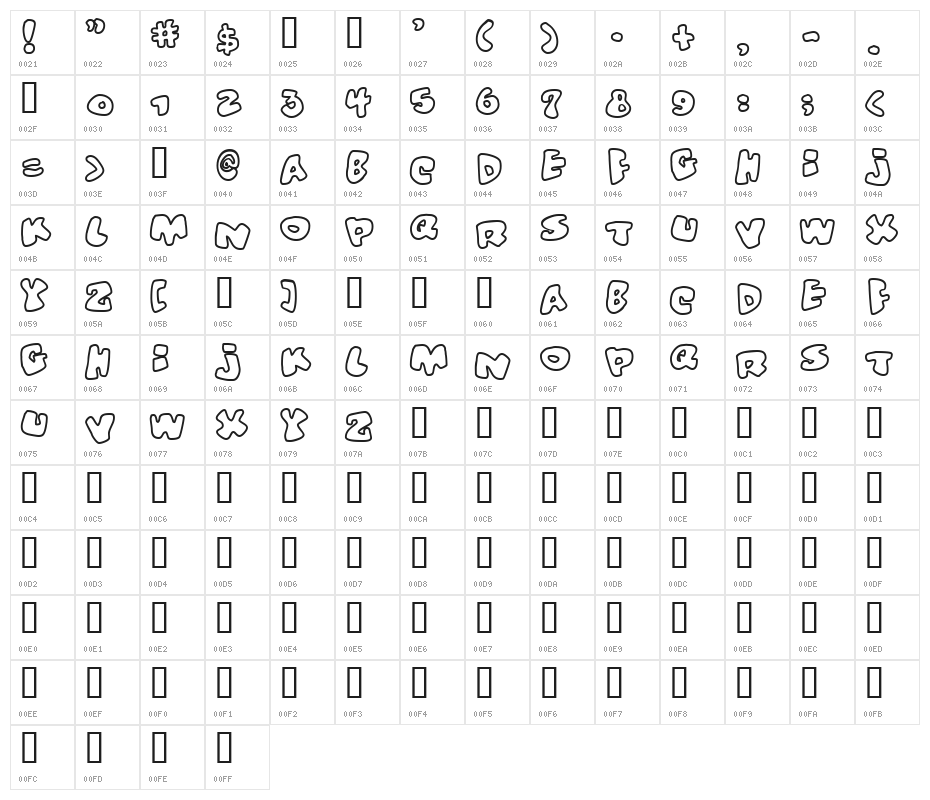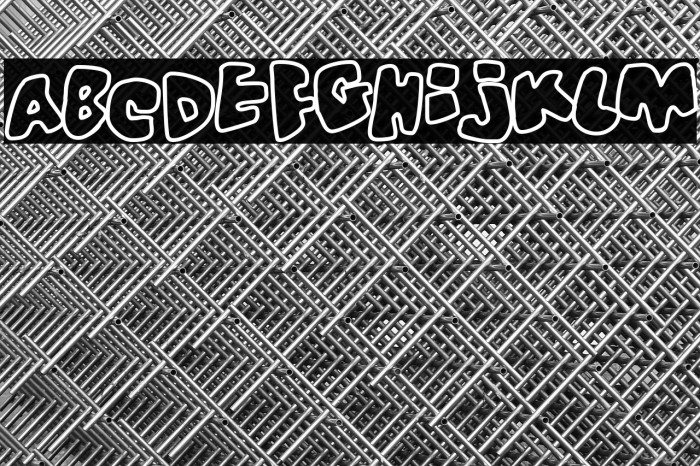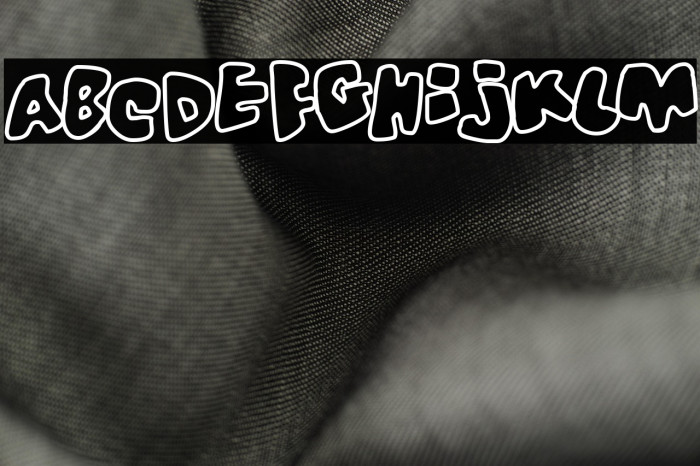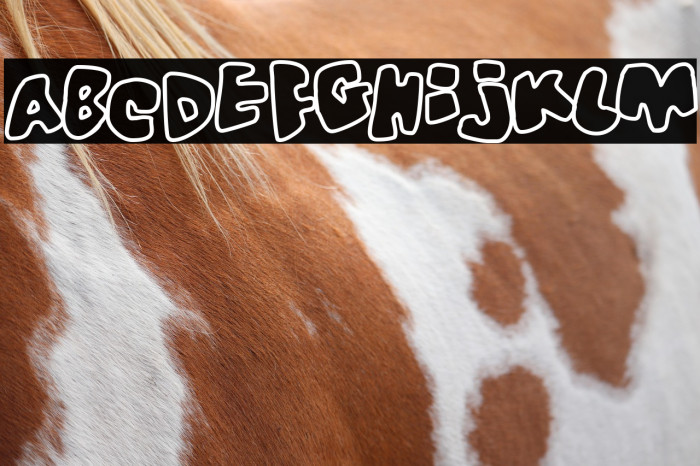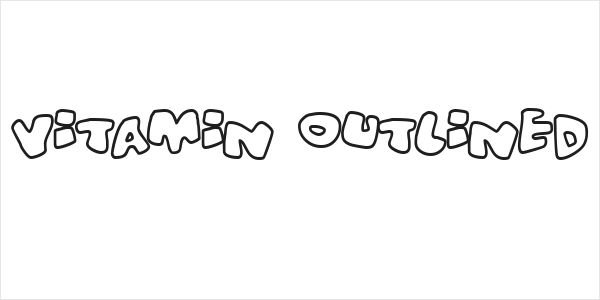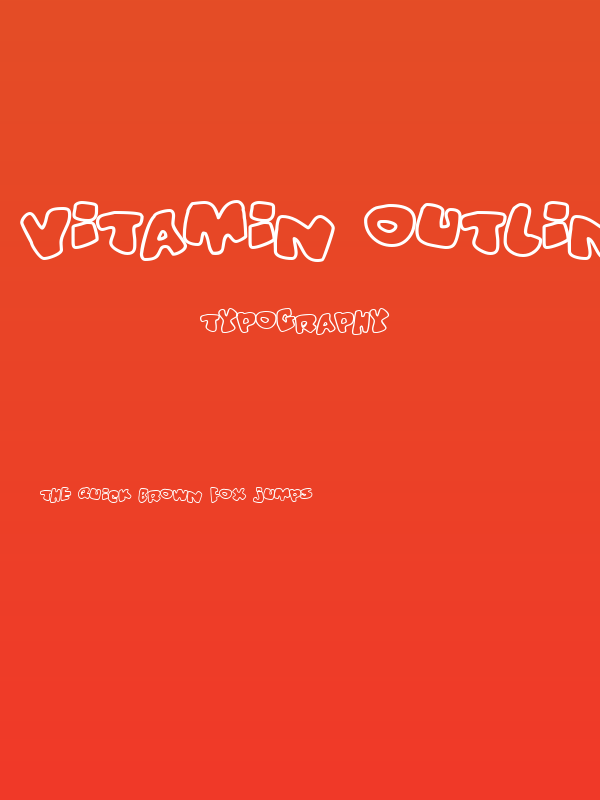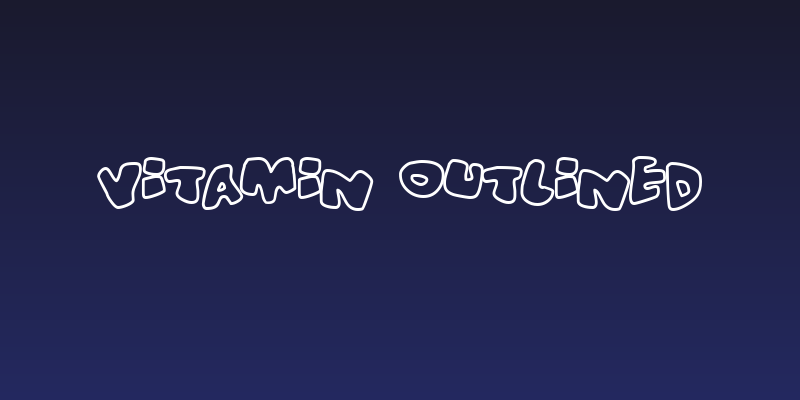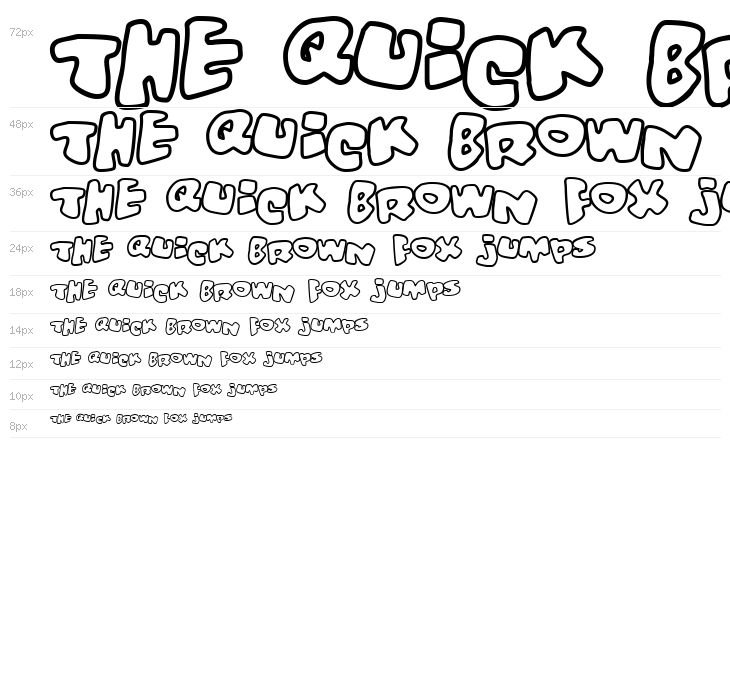
Vitamin outlined Font
Vitamin outlined Description
This playful and bold font features an outlined style that gives each character a cartoonish and lively appearance. The letters are rounded and irregular, creating a sense of fun and whimsy. The font maintains a consistent thickness throughout, with a medium contrast between the strokes and the outlines. The characters are slightly condensed, enhancing the playful nature of the design. This font is ideal for projects that require a lighthearted and informal touch, such as children's books, party invitations, or playful branding materials.
| Overall Style | Playful, Cartoonish |
| Proposed Projects | Children's books, party invitations, playful branding, posters, and comic strips. |